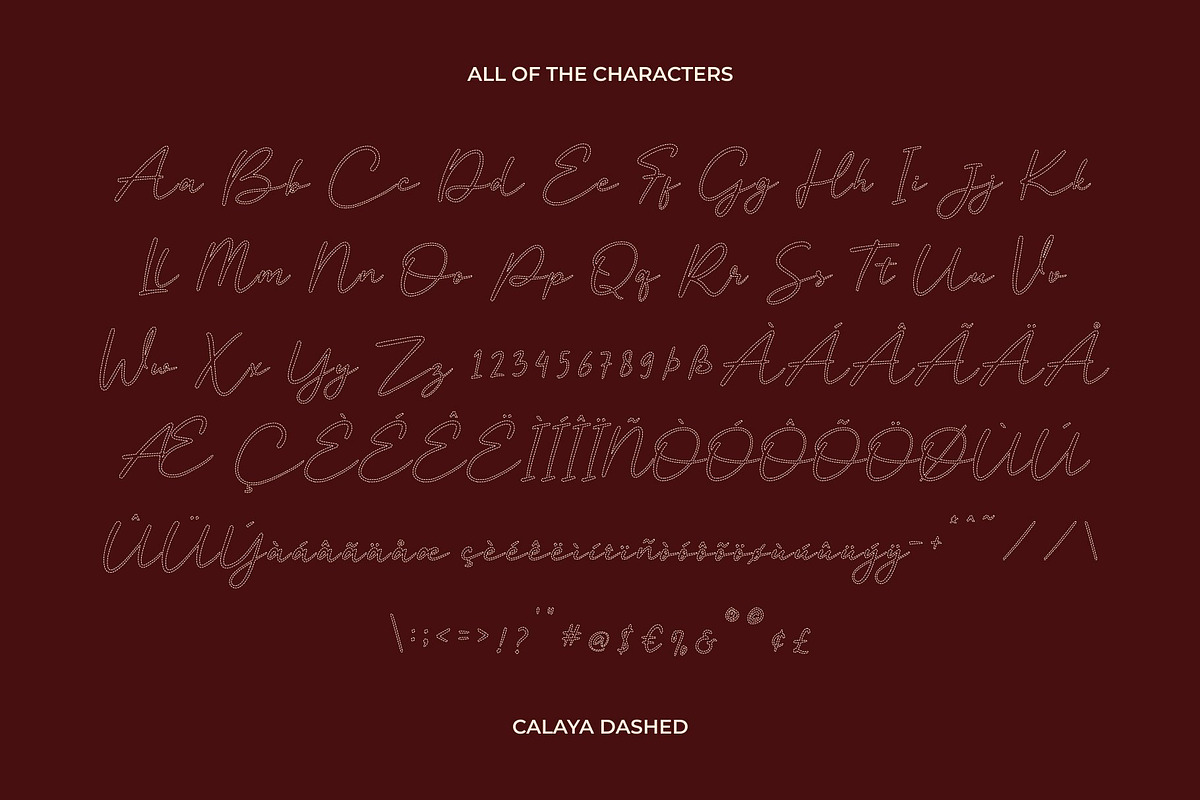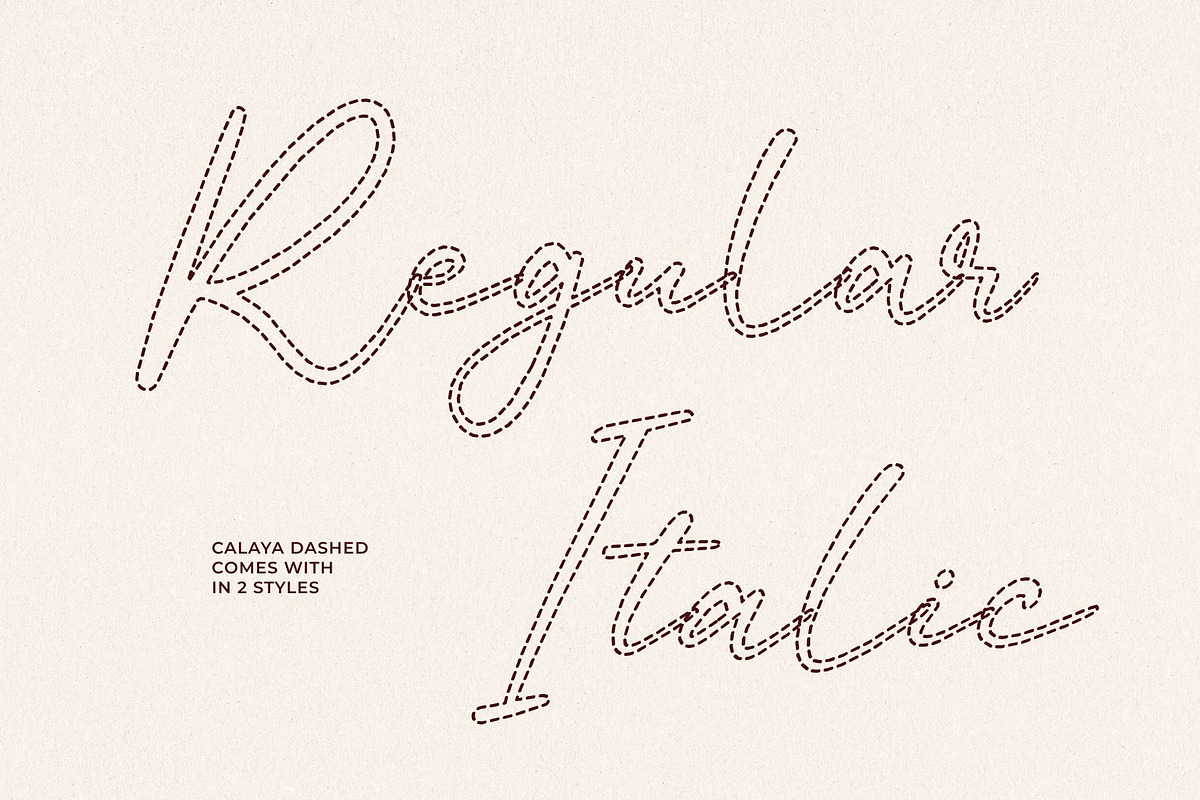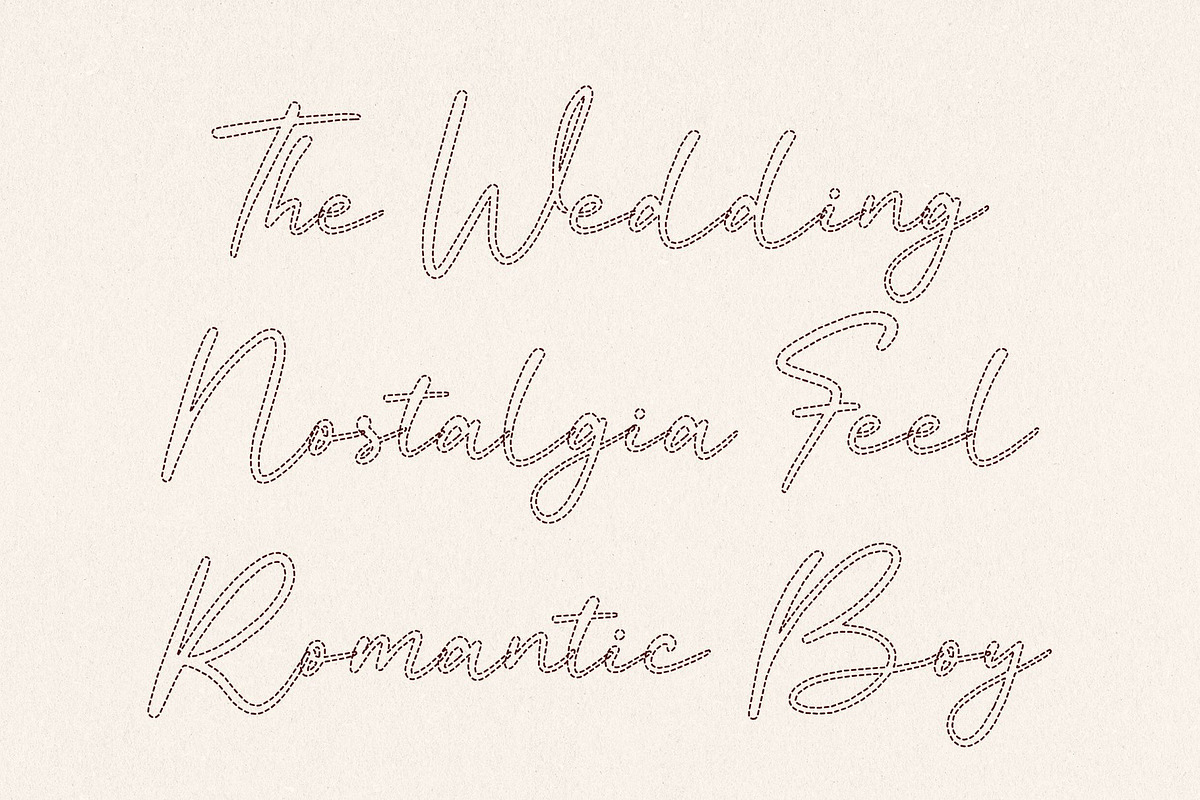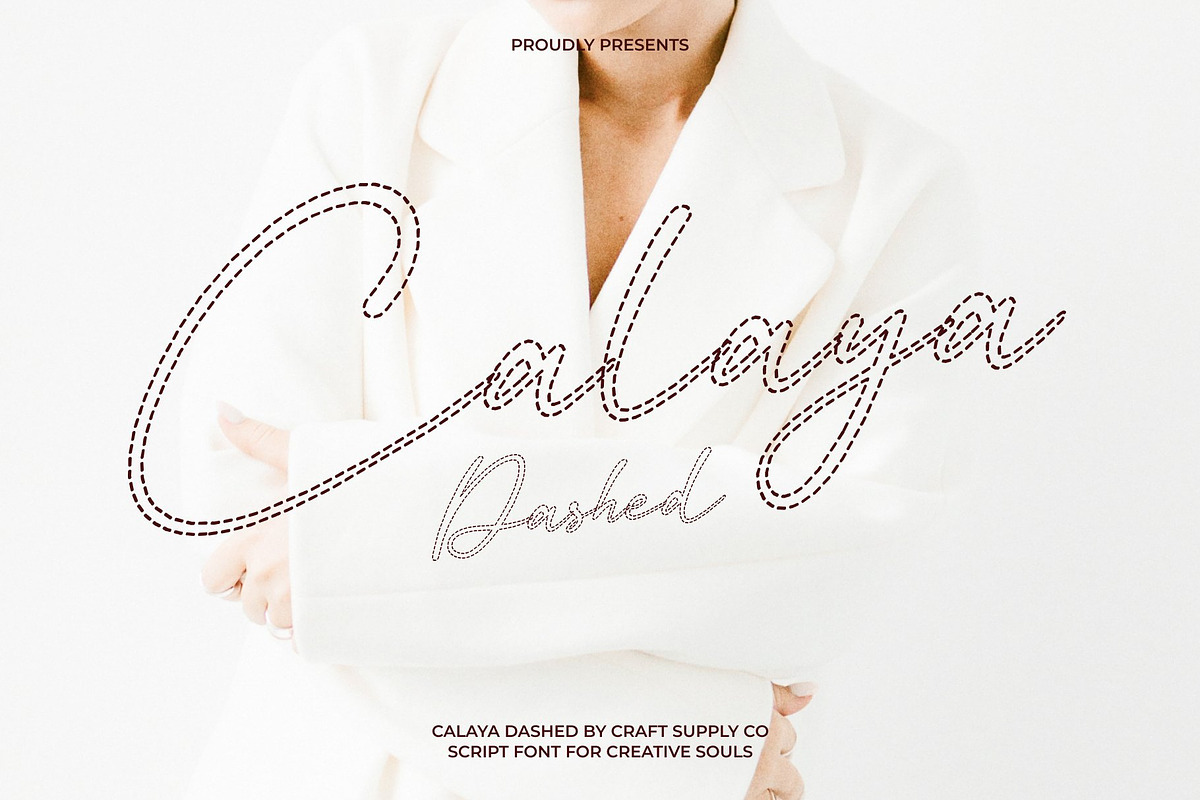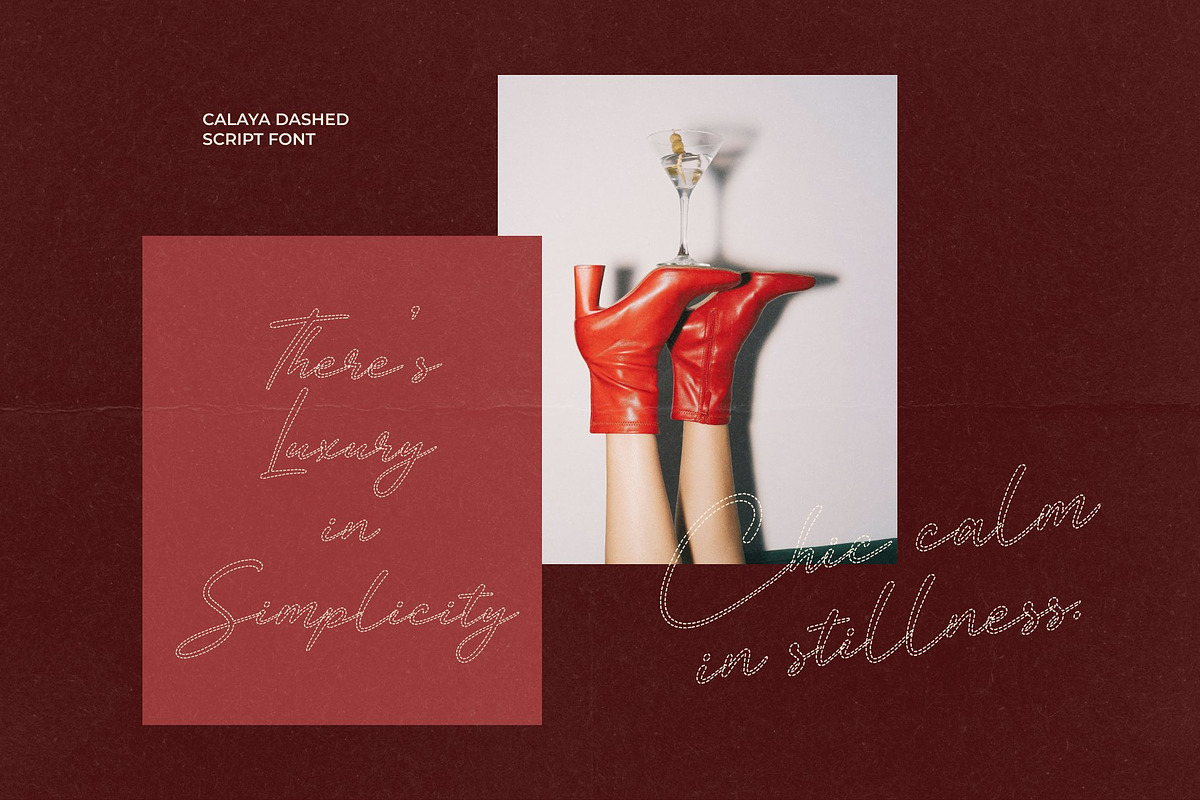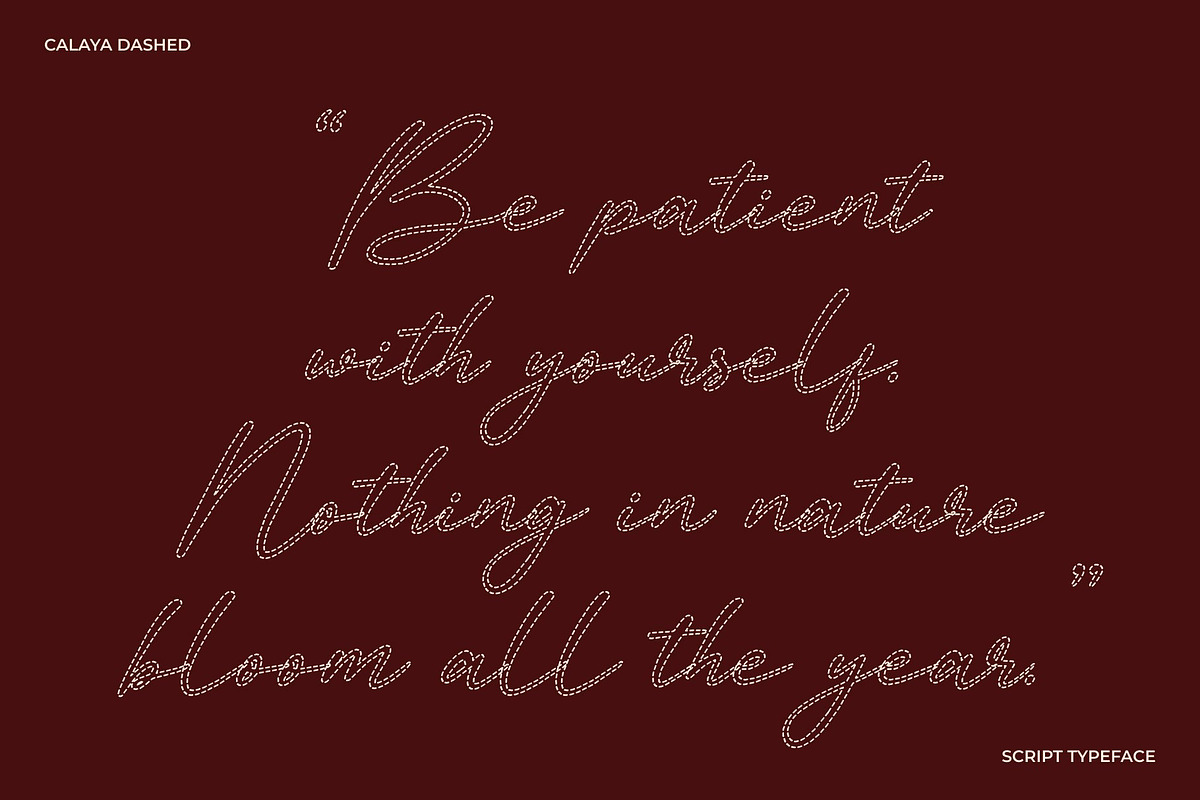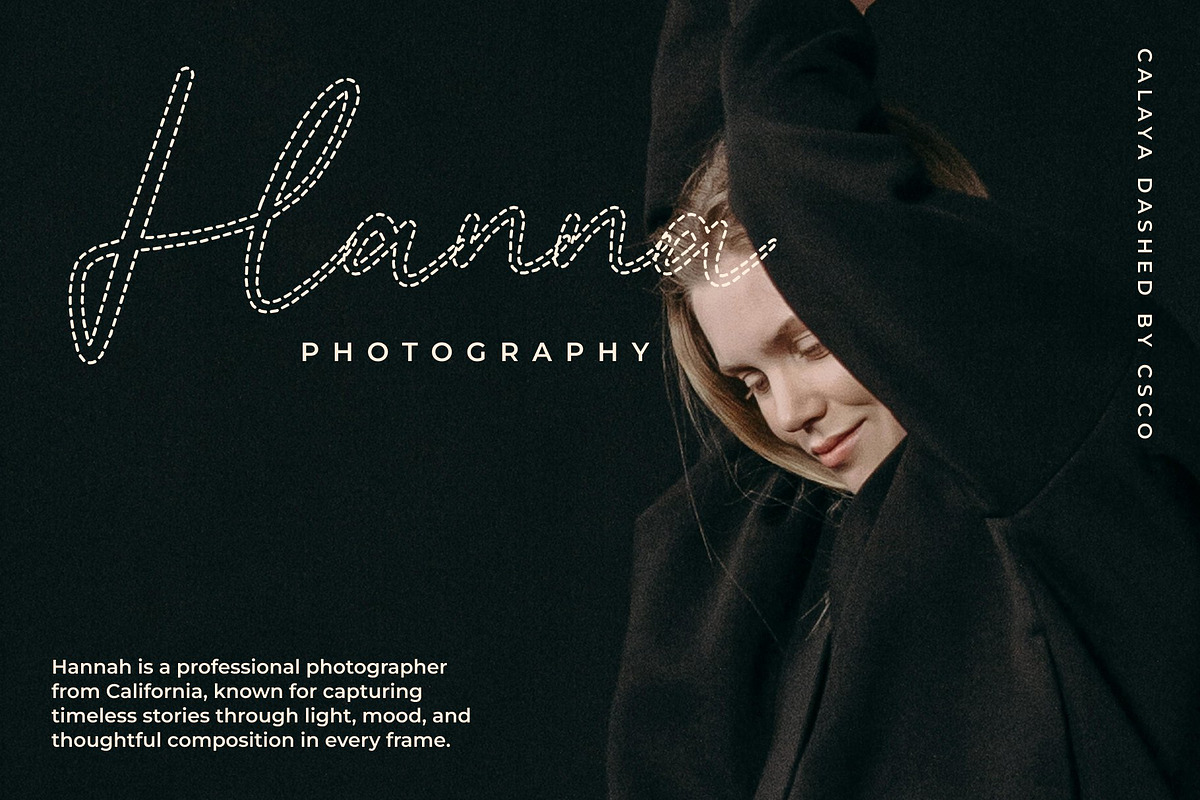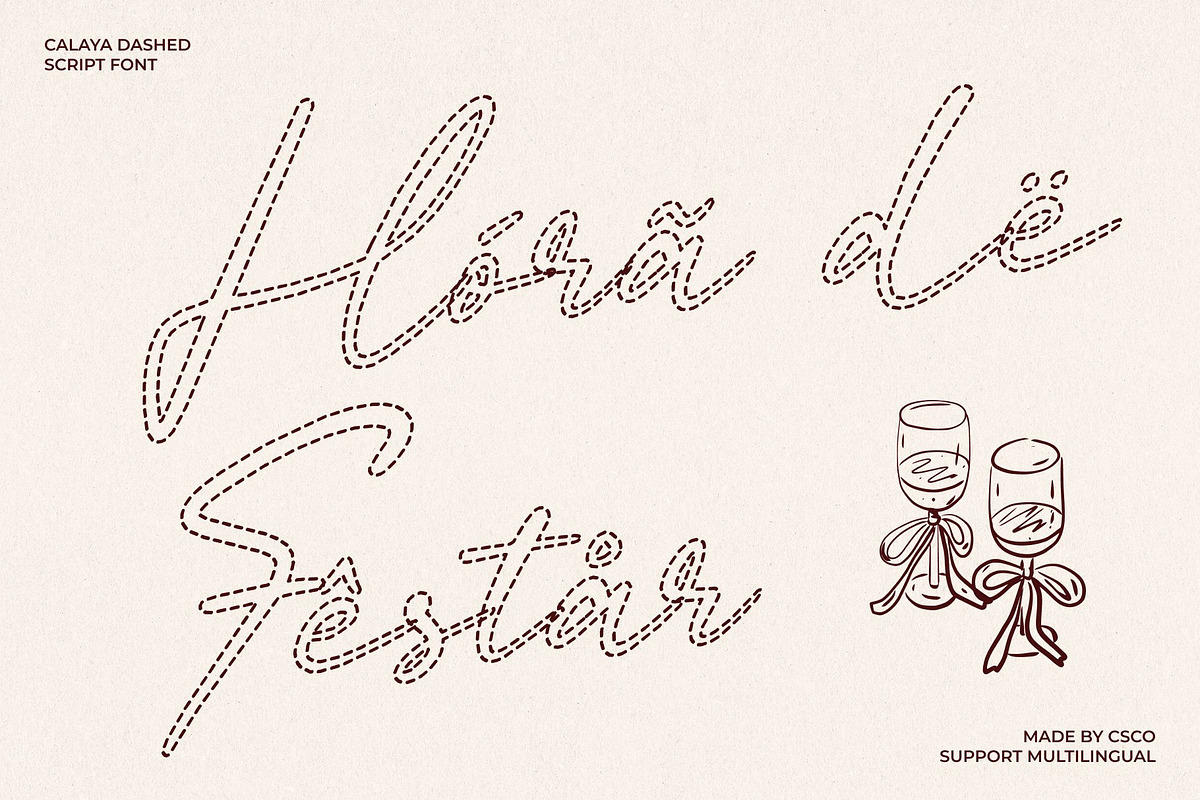
Calaya Dashed
Calaya Dashed – Lovely Modern Script
Modern Handwritten Script with Airy Dashed Detail This is a lovely modern script font inspired by the expressive flow of real handwriting. Each letter is formed with delicate broken segments rather than solid continuous lines, creating a soft, airy texture. This dashed construction enhances the handcrafted feel, giving the font a relaxed, creative personality while maintaining an elegant and polished appearance.
Perfect for Fashion, Lifestyle, and Chic Branding Designed for fashion brands, e-commerce, trend blogs, wedding boutiques, and businesses that want to appear upscale and stylish, this font brings warmth and sophistication to any layout. Its flowing dashed strokes work beautifully for logos, greeting cards, quotes, posters, stationery, blog headers, and packaging adding charm and personality to every design.
Versatile for Trendy Creative Projects This font shines in modern envelope lettering, book titles, watercolor-inspired themes, craft designs, DIY projects, and artistic layouts. The combination of smooth script flow and segmented strokes makes every composition feel trendy, expressive, and visually captivating perfect for projects that aim to look pretty, modern, and thoughtfully crafted.
Calaya Dashed Regular
Calaya Dashed Italic